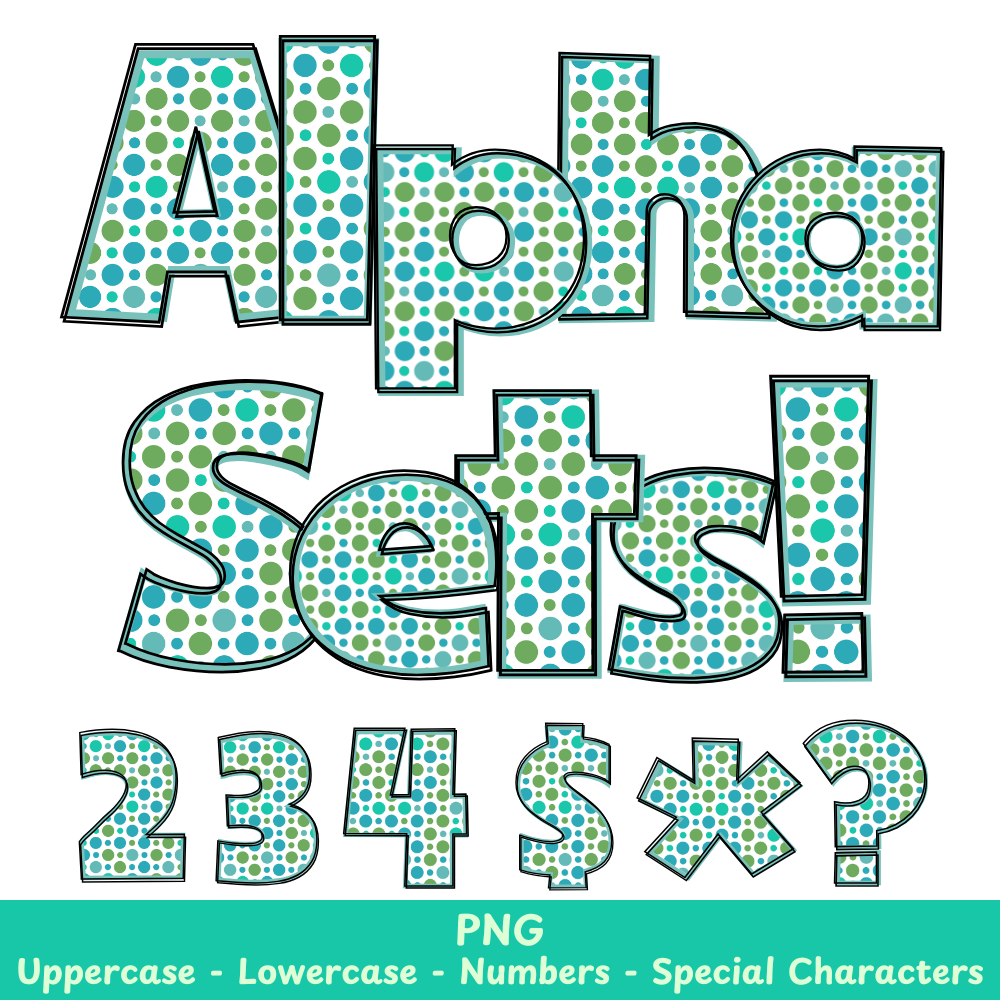
Green Polka Dots PNG Font
Green Polka Dots Alpha Set PNG Font Pack
Liven up your crafts and designs with the Green Polka Dots PNG Font. Perfect for sublimation and other creative projects, this font adds a touch of charm and playfulness to any design. Use it to create eye-catching designs and stand out from the crowd.